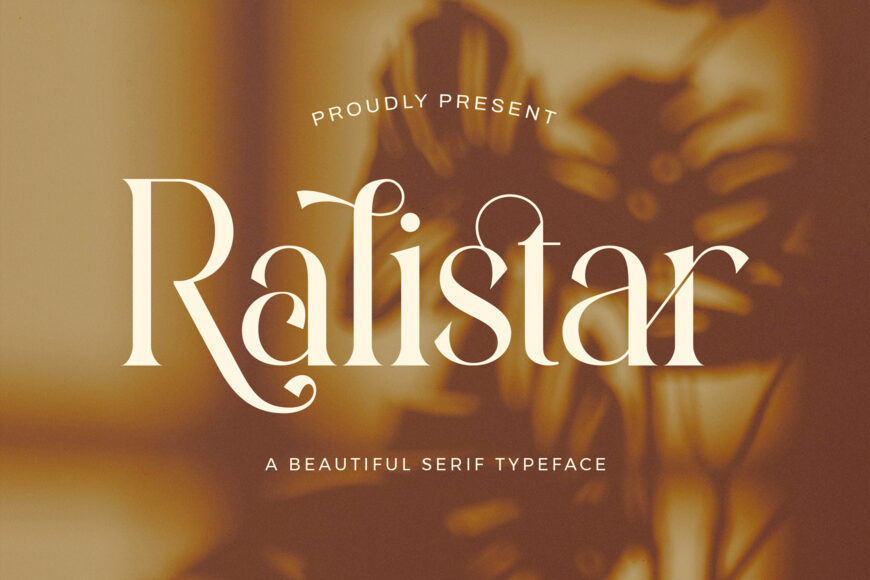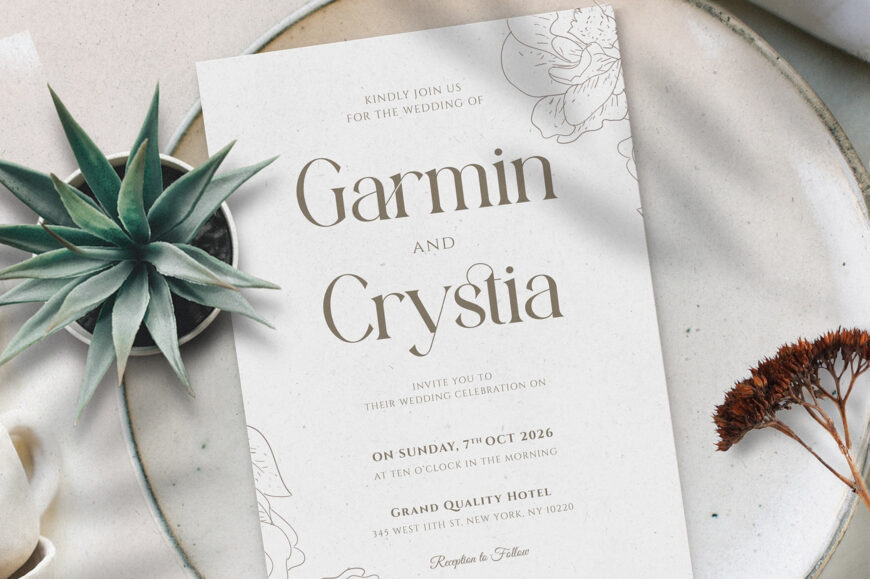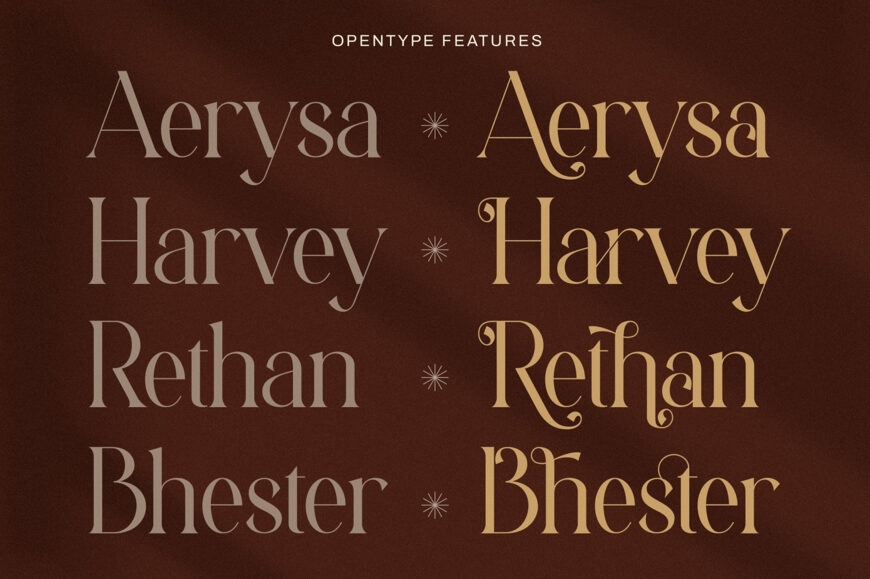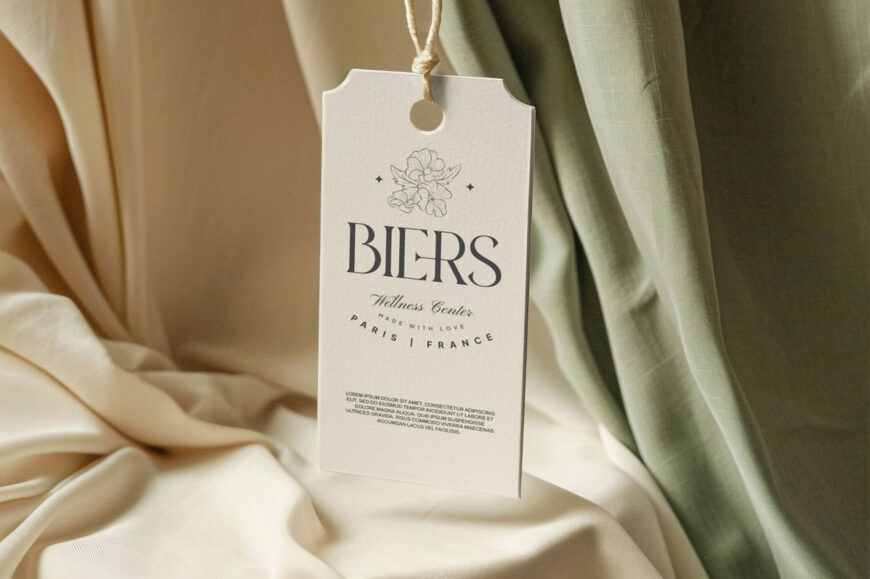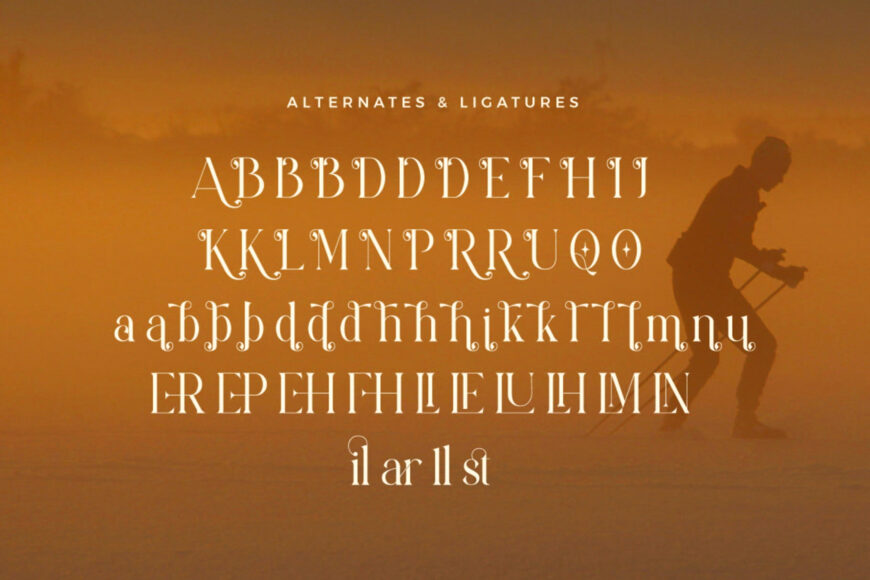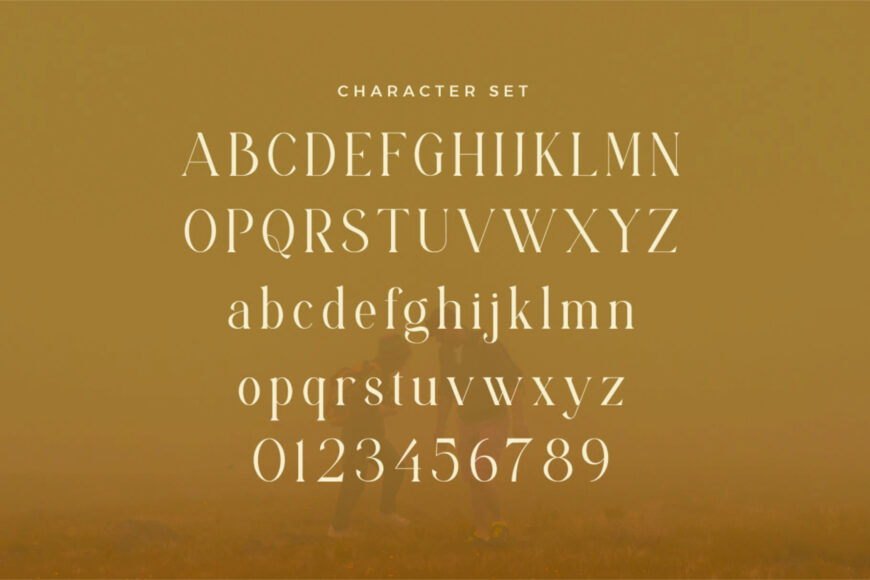
Ralistar Font
Ralistar is an elegant, modern serif font designed to bring timeless sophistication to your creative projects. Characterized by graceful curves, refined contrast, and a luxurious feel, it is ideal for high-end branding, editorial design, logo creation, luxury packaging, and wedding invitations. With its versatile letterforms and chic aesthetic, Ralistar effortlessly elevates your visual identity, adding a polished, high-class touch to any layout.